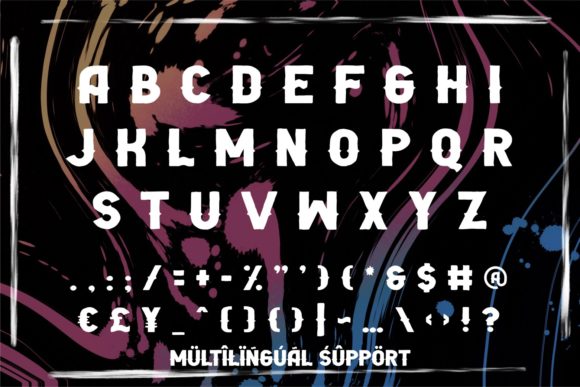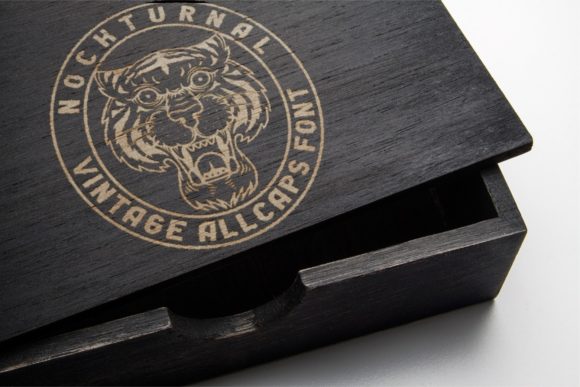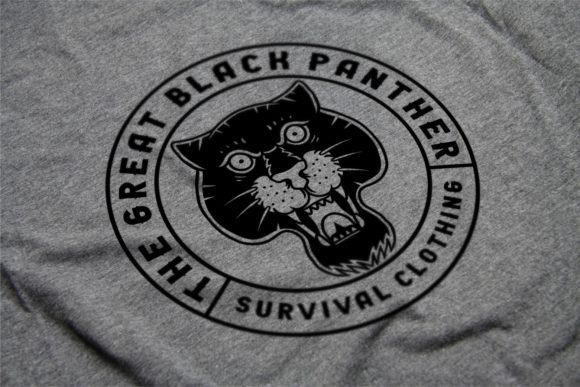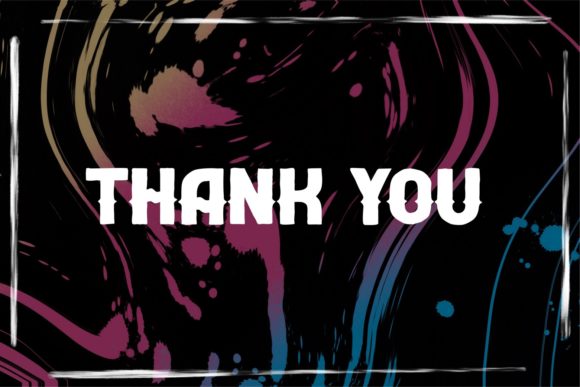
Introduction to Nockturnal Font
Have you ever been brainstorming ideas for a new design project, scrolling through your font library, and suddenly stumbled upon the perfect match? That’s exactly what happened to many designers when they discovered the Nockturnal Font. This bold, vintage-styled display font is a game-changer for any creative project.
As a valuable addition to your design resource, the Nockturnal Font offers a high-quality, eye-catching look that’s sure to elevate your posters, flyers, and prints. Its assertive design makes it perfect for grabbing attention and conveying a sense of power and sophistication. Whether you’re working on a personal project or a commercial campaign, this font is a must-have for any designer looking to take their designs to the next level.
Nockturnal Font
- High-quality, unique design for creative projects, available as a free download.
- Comes with a transparent background, making it ideal for use on various backgrounds and designs.
- Features a bold and elegant design, perfect for use in various creative projects, such as logos, typography, and graphics.
- Includes a range of glyphs and characters, making it suitable for use in various languages and scripts.
- High-resolution design, suitable for use in print and digital applications, with a resolution of 300 DPI.
Honest Review: Nockturnal Font
I recently stumbled upon the Nockturnal Font, and I must say it’s a fantastic addition to any designer’s arsenal. This high-quality font is a design resource that’s perfect for creative projects requiring a unique touch.
One of the standout features of the Nockturnal Font is its versatility. It works well in a variety of contexts, from modern digital interfaces to traditional print materials. ✨ The font’s clean lines and elegant aesthetic make it an excellent choice for projects where a sophisticated look is desired.
- Works well in digital and print contexts
- Elegant and sophisticated aesthetic
However, I did notice a few limitations. ⚠️ The font’s character set is somewhat limited, and it may not be suitable for projects requiring extensive typing. Additionally, the font’s bold weight could be more pronounced.
Overall, the Nockturnal Font is a solid choice for designers seeking a high-quality, unique font for their creative projects. With its versatility, elegant aesthetic, and ease of use, it’s definitely worth checking out.
Nockturnal Font
The Nockturnal Font is perfect for any creative project, including graphic design, digital art, and typography. Use it to create eye-catching titles, headings, and body text for your designs.